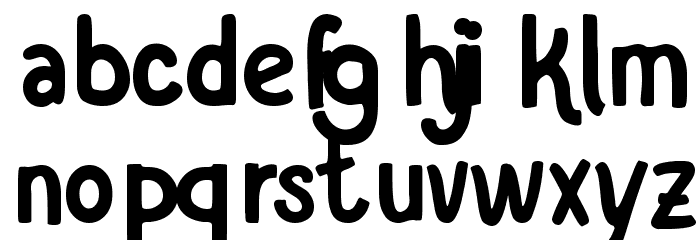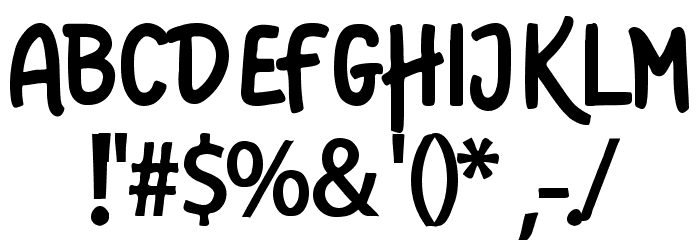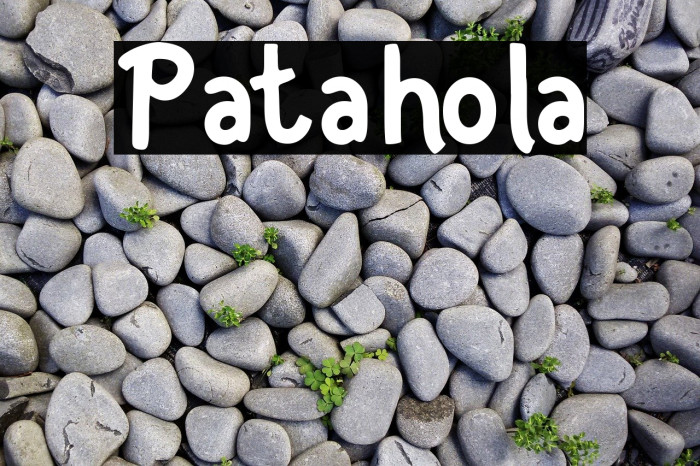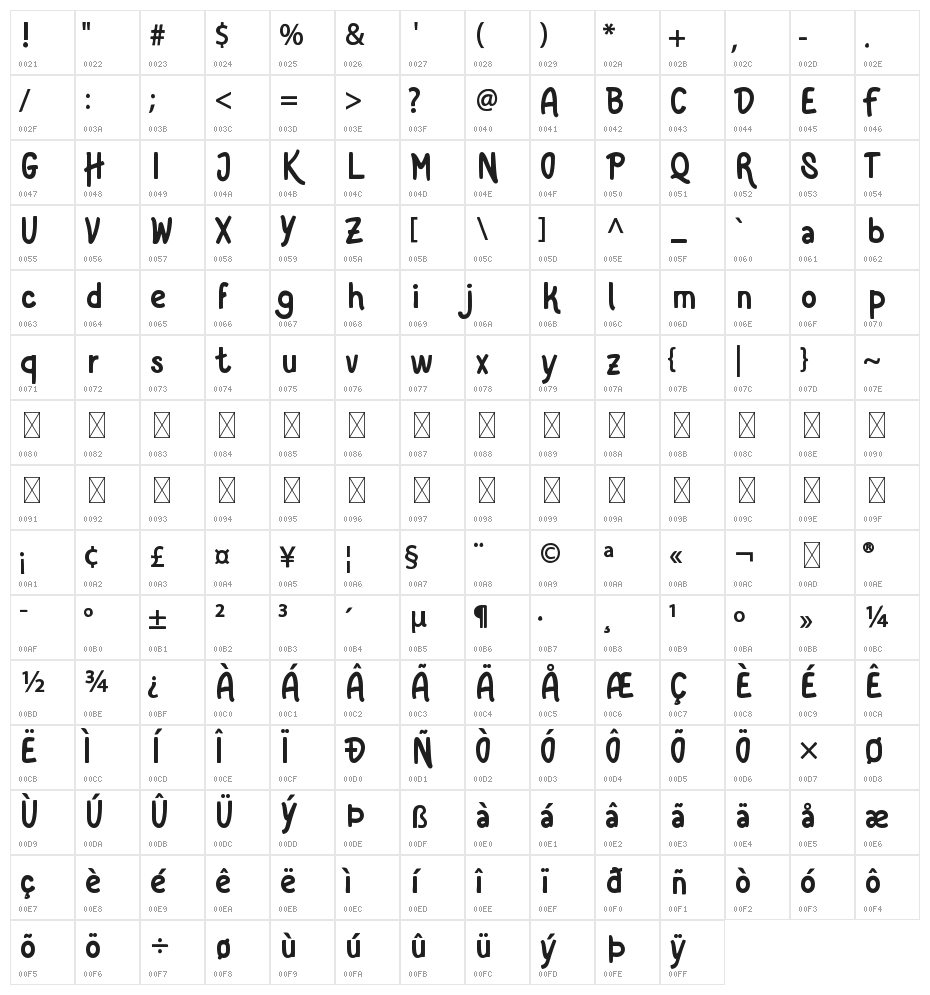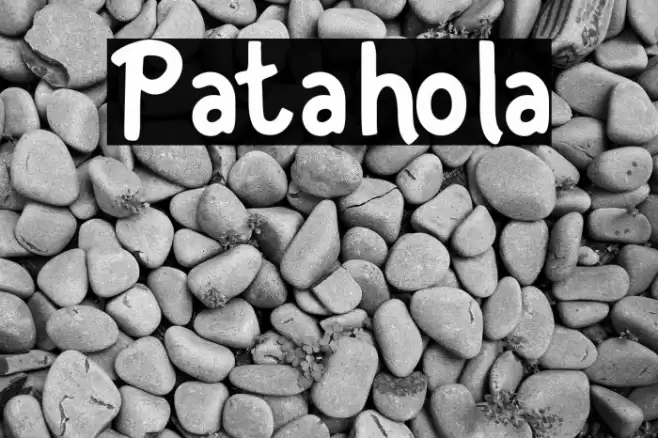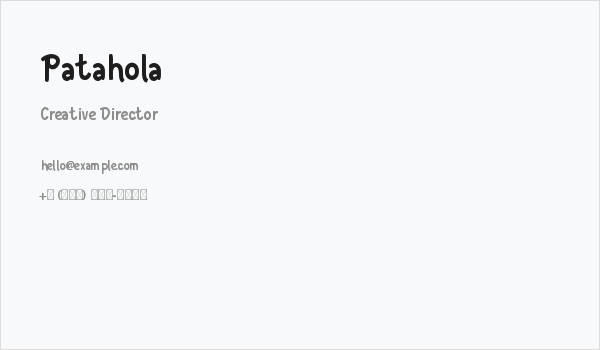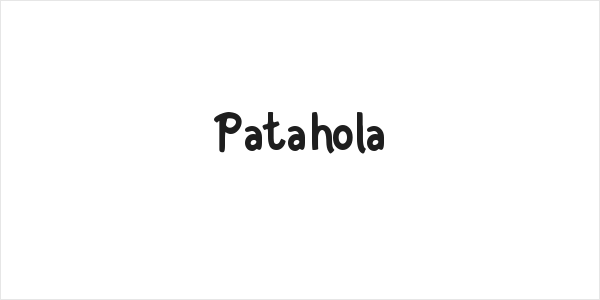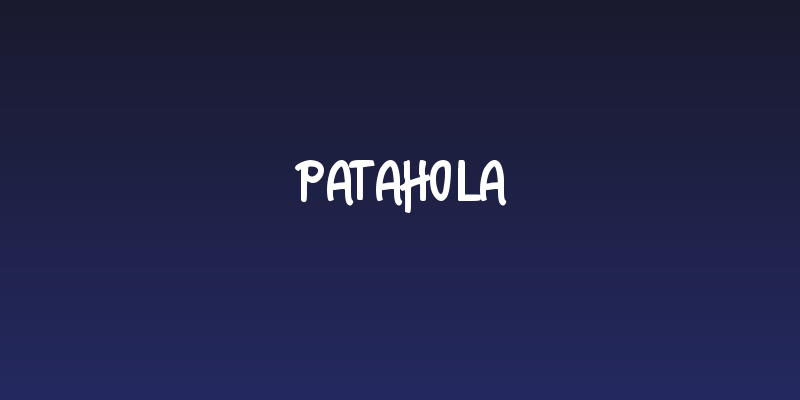
Patahola Font
This playful and bold font features a hand-drawn style with exaggerated curves and a slightly irregular baseline, giving it a whimsical and energetic appearance. The uppercase and lowercase letters maintain a consistent thickness, contributing to a cohesive look. The characters are rounded and have a casual, friendly vibe, making them suitable for creative and informal designs. The numbers and special characters follow the same playful aesthetic, ensuring versatility across different uses.
A playful, hand-drawn font with bold, rounded characters and a whimsical style.
- Proposed Projects: Ideal for children's books, playful branding, greeting cards, and creative posters.
- Overall Style: Playful